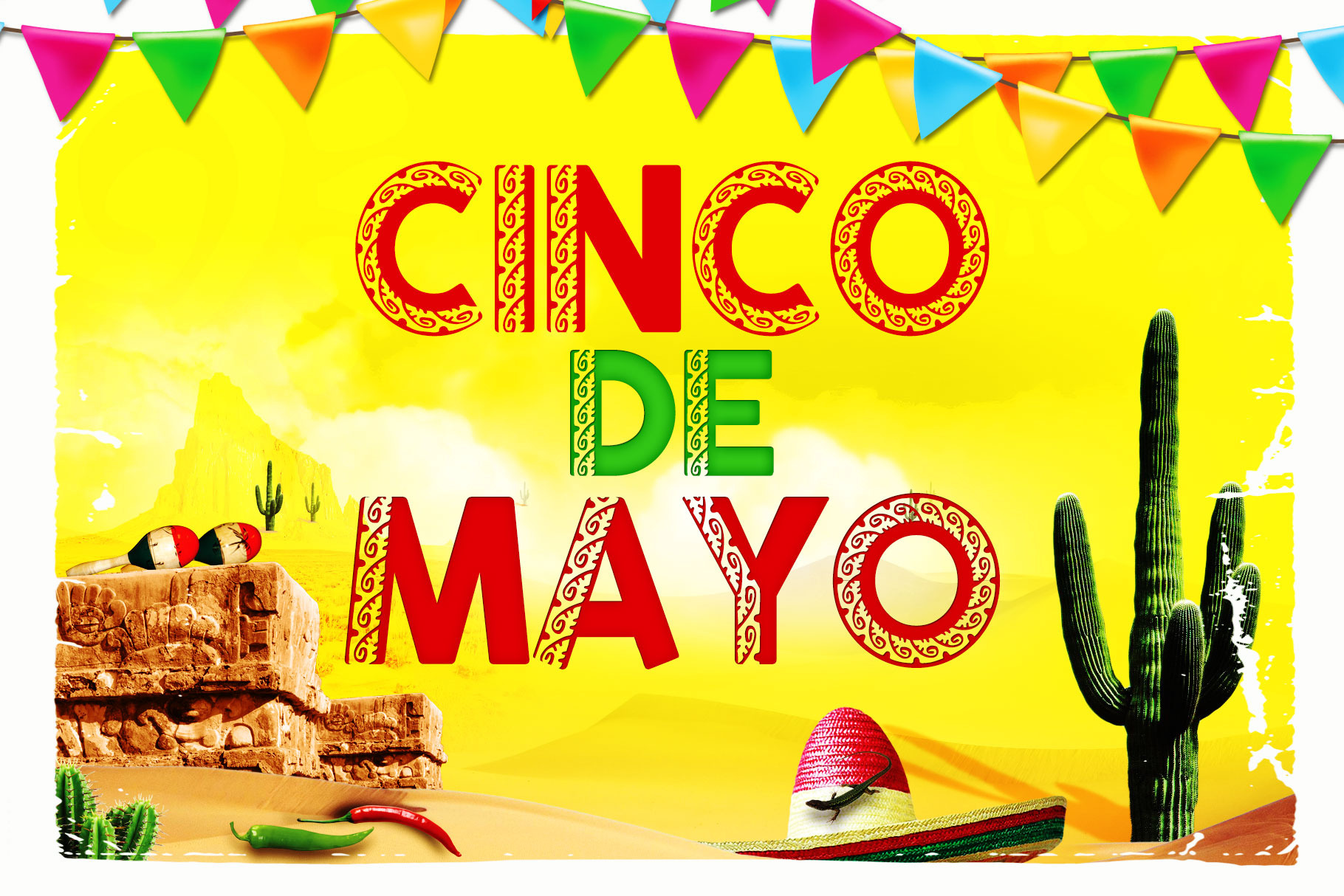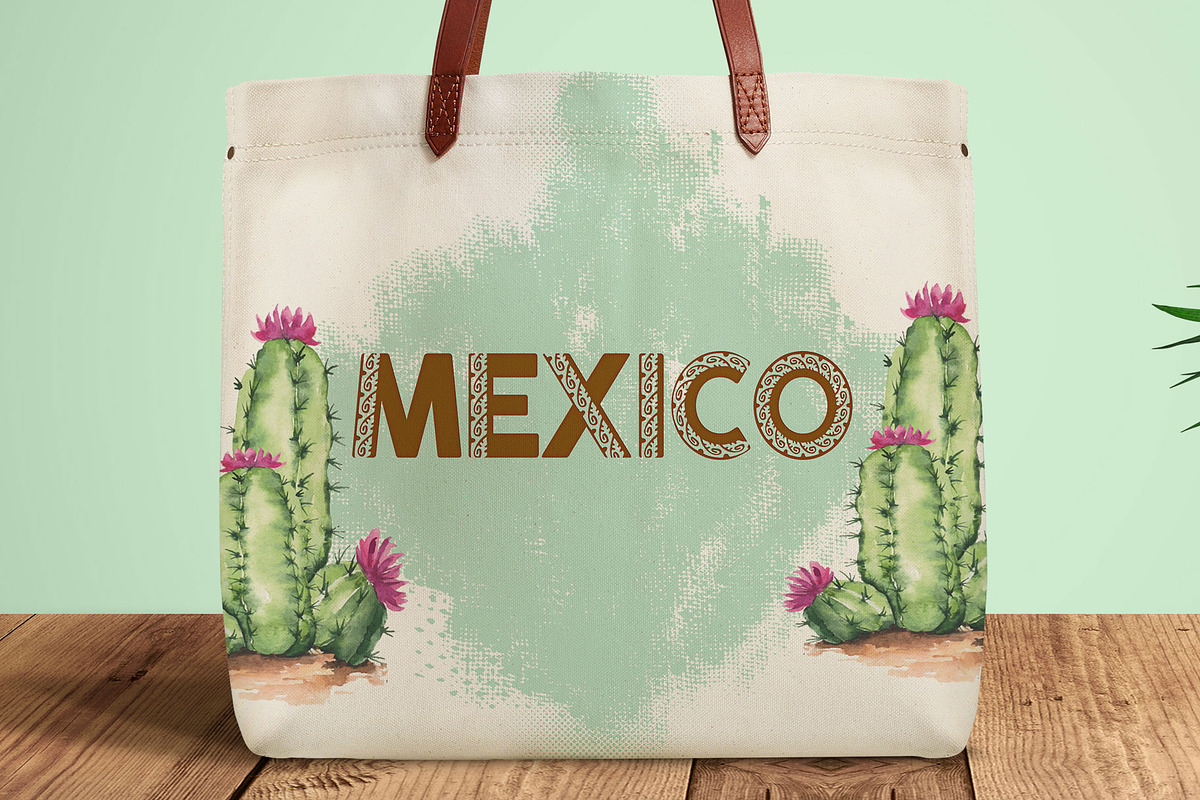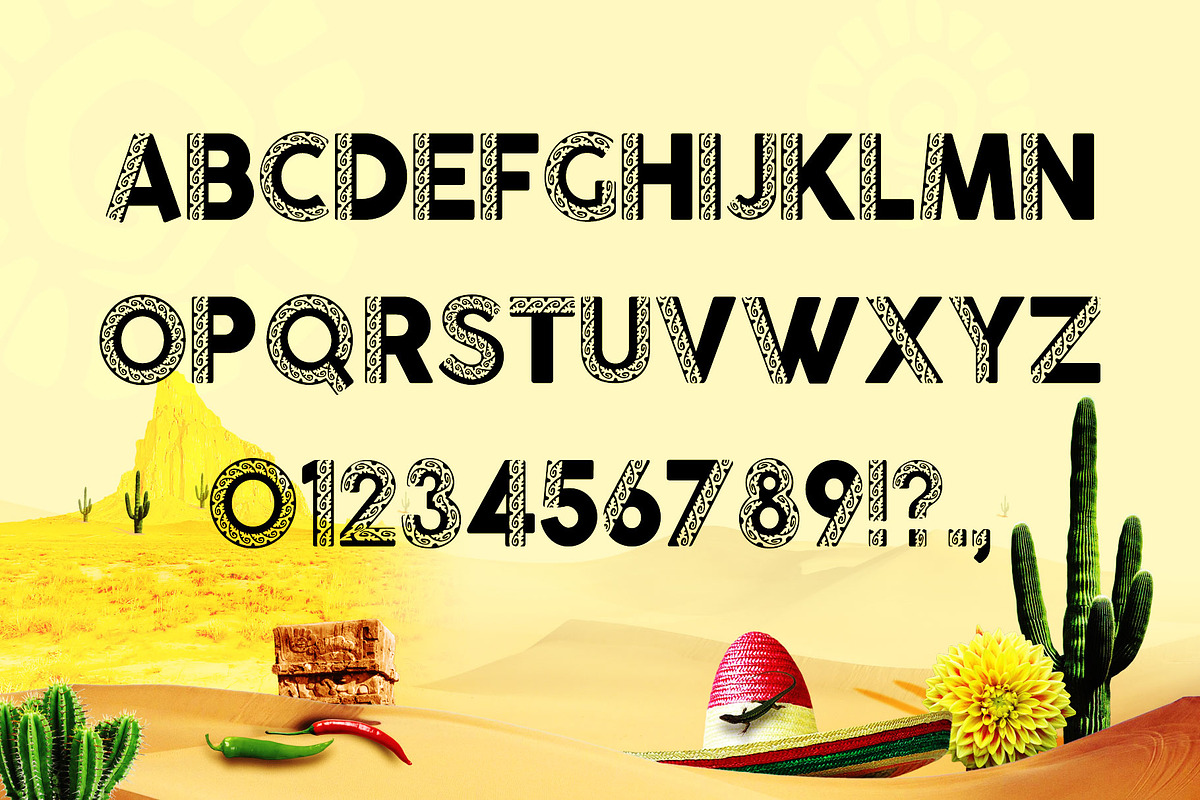
Cinco De Mayo Mexican Font
Mexican font Modern display font for your project. Mexican font is suitable for logo, branding, greeting card, poster, flyer, any outdoor advertising and any design that you create.